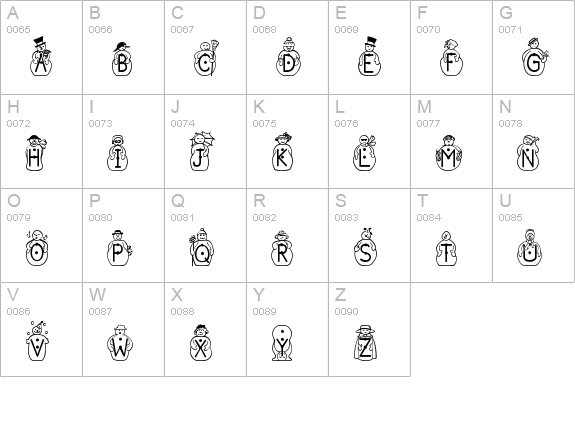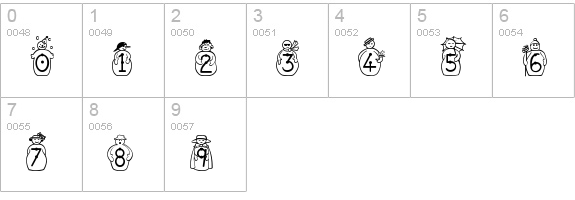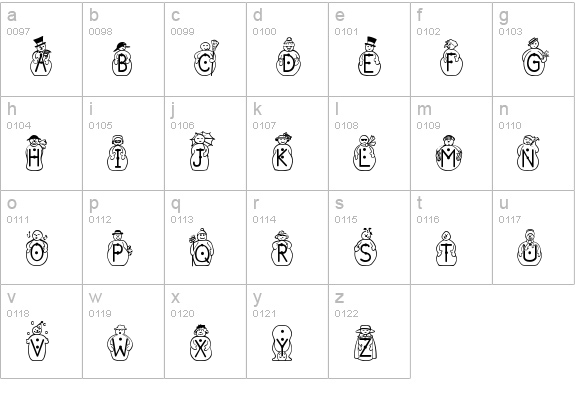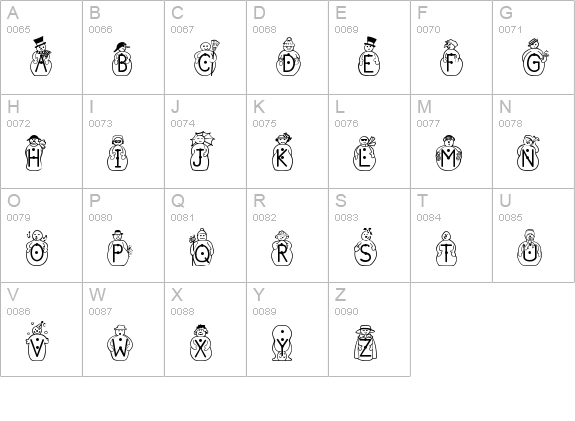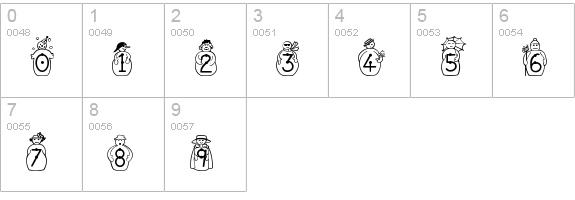
JFSnowbiz Font Details
Introducing JFSnowbiz, the captivating font that effortlessly combines elegance with a touch of playfulness. This free-spirited typeface is destined to add a whimsical charm to any project, whether it be a holiday-themed invitation, a creative logo, or an eye-catching headline. With its unique and intricate letterforms, JFSnowbiz captures the essence of winter wonderland, invoking a sense of joy and excitement. Its graceful curves and delicate lines create a visual harmony that is both pleasing to the eye and a testament to the designer's artistic prowess. But what truly sets JFSnowbiz apart is its versatility. Whether you're aiming for a modern and sophisticated look or a more casual and friendly vibe, this font can effortlessly adapt to your creative vision. It effortlessly transitions between bold and thin strokes, allowing you to experiment with various typographic styles. And the best part? JFSnowbiz is freely available to download at FontsMarket.com. That's right, you can enjoy this stunning font without spending a dime. It's the perfect opportunity to enhance your design projects without breaking the bank. So, why wait? Embrace the magic of JFSnowbiz and let your creativity soar. Download this enchanting font today and unlock a world of endless possibilities.